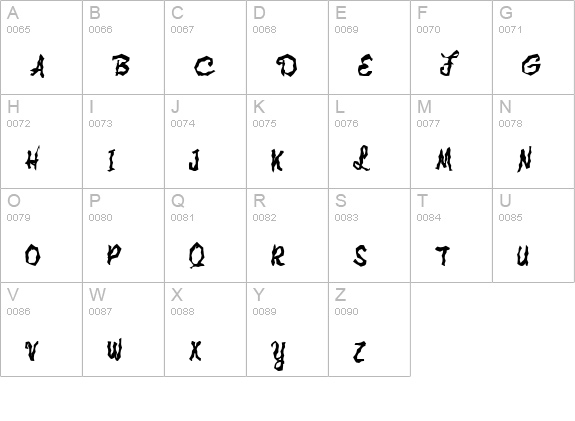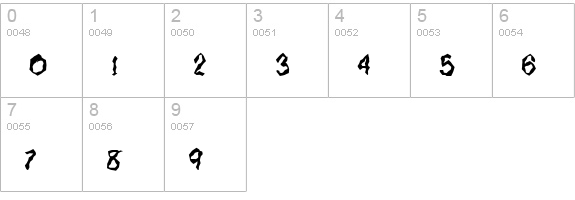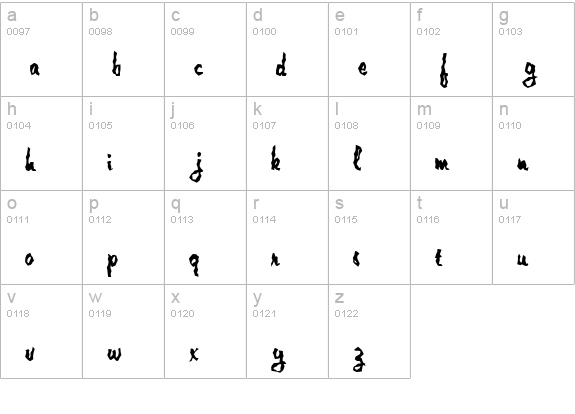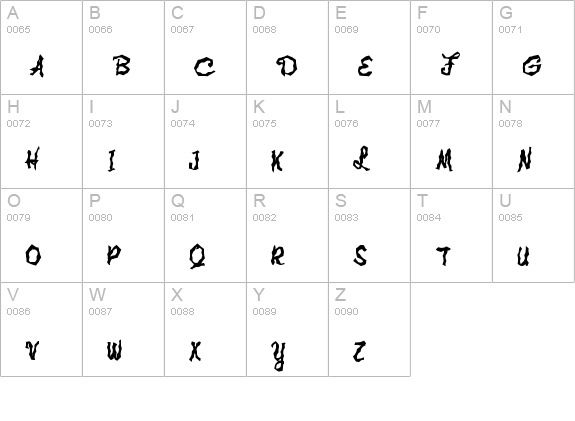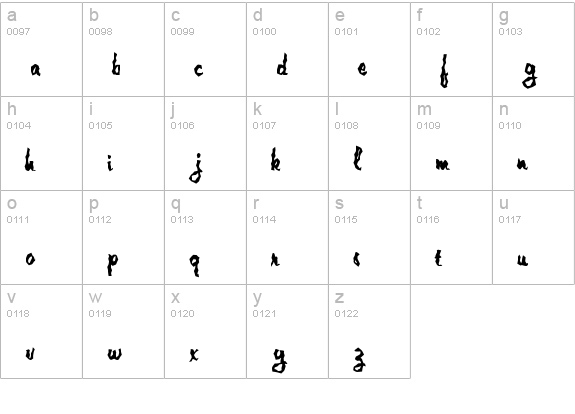
Jongleur Font Details
Introducing Jongleur font, a captivating and versatile typeface that effortlessly blends elegance with a touch of whimsy. The intricate curves and playful flourishes of Jongleur make it perfect for a wide range of design projects, from invitations to branding to packaging. This charming font is sure to add a unique flair to any design, whether you're aiming for a classic and refined look or a more modern and quirky feel. The graceful letterforms of Jongleur will enchant your audience and leave a lasting impression. And the best part? Jongleur is available for free download at FontsMarket.com. So go ahead and unleash your creativity with this delightful font that is as charming as it is versatile. Let Jongleur bring a touch of magic to your next project and watch it come to life with style and grace.